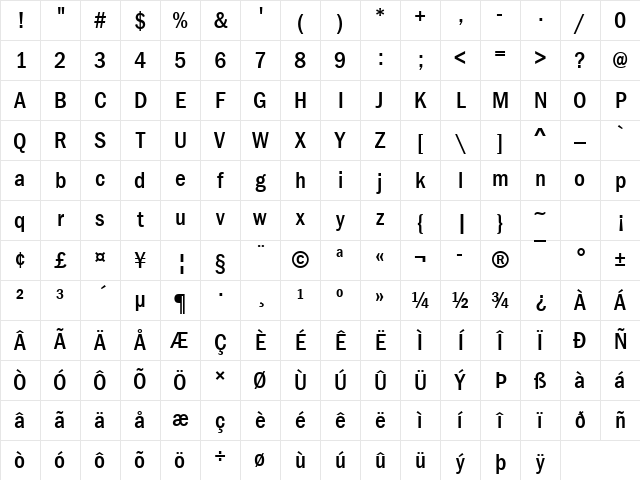
Franklin Gothic Medium Cond Regular
Design Context for Franklin Gothic Medium Cond
Franklin Gothic Medium Cond takes a clean, functional approach - its unadorned letterforms prioritise legibility and work reliably across screen and print environments. Its narrow stance lets it pack a punch even in space-constrained designs.
Font Pairing: Works well alongside a characterful serif or display font that can carry the expressive load while Franklin Gothic Medium Cond handles the functional copy.
Pro Tip: Use Franklin Gothic Medium Cond tightly set in headlines and banners - its condensed proportions make it ideal for maximum impact in minimum horizontal space.